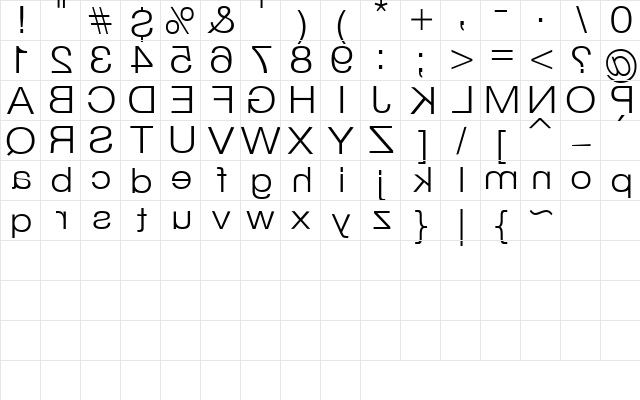
Strait Kcab Normal Font Preview
Strait Kcab Normal
Design Context for Strait Kcab Typeface
Strait Kcab is a composed and adaptable typeface that performs quietly and consistently across a wide range of design contexts.